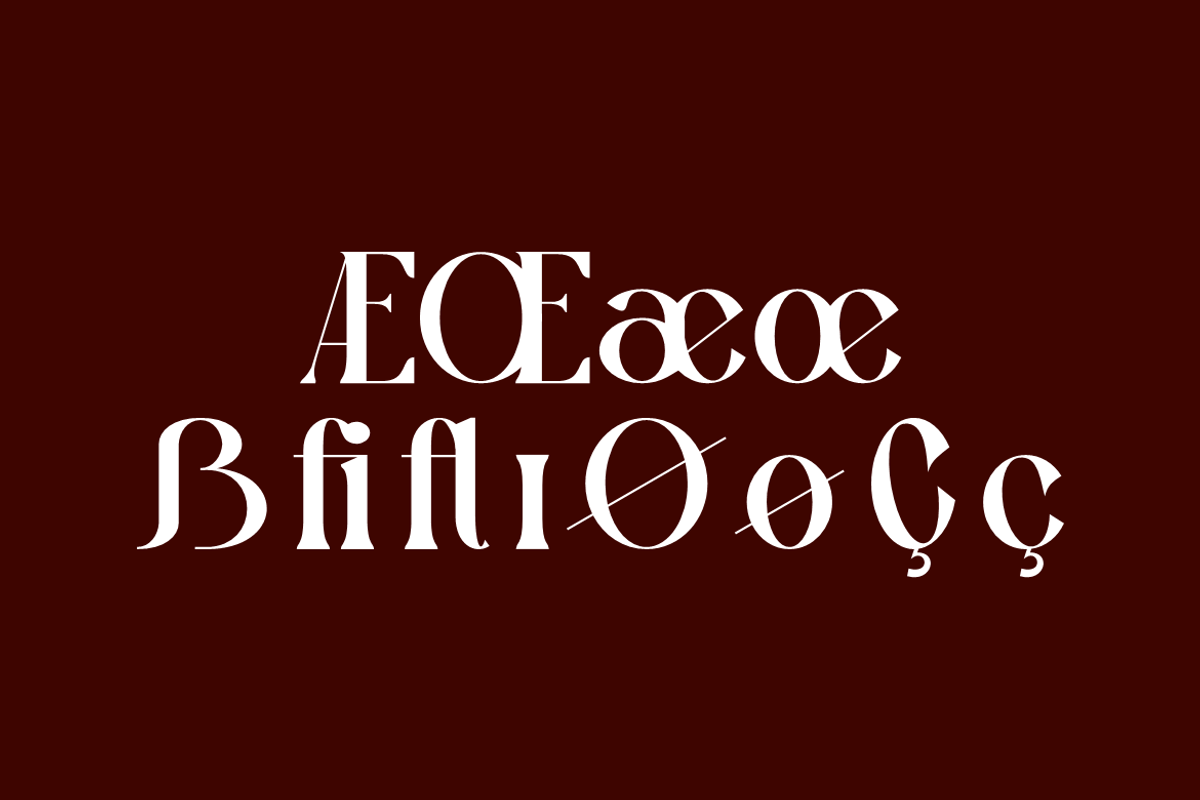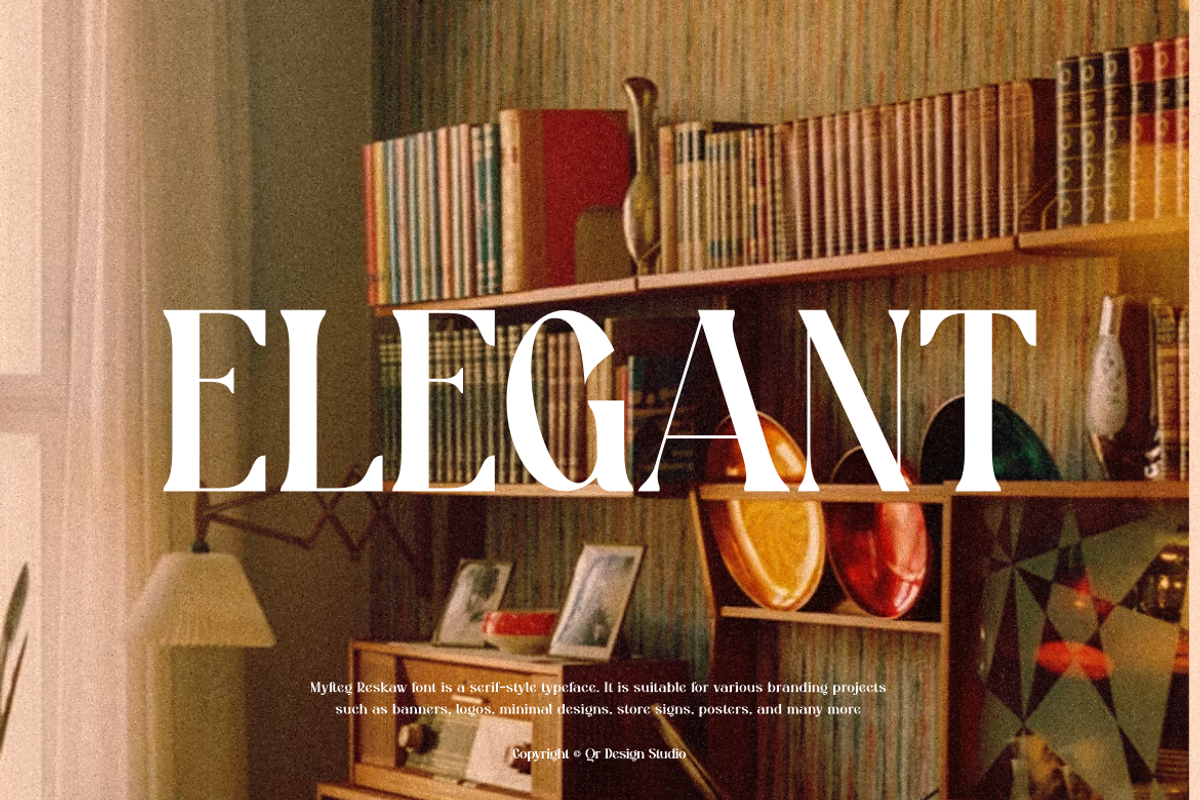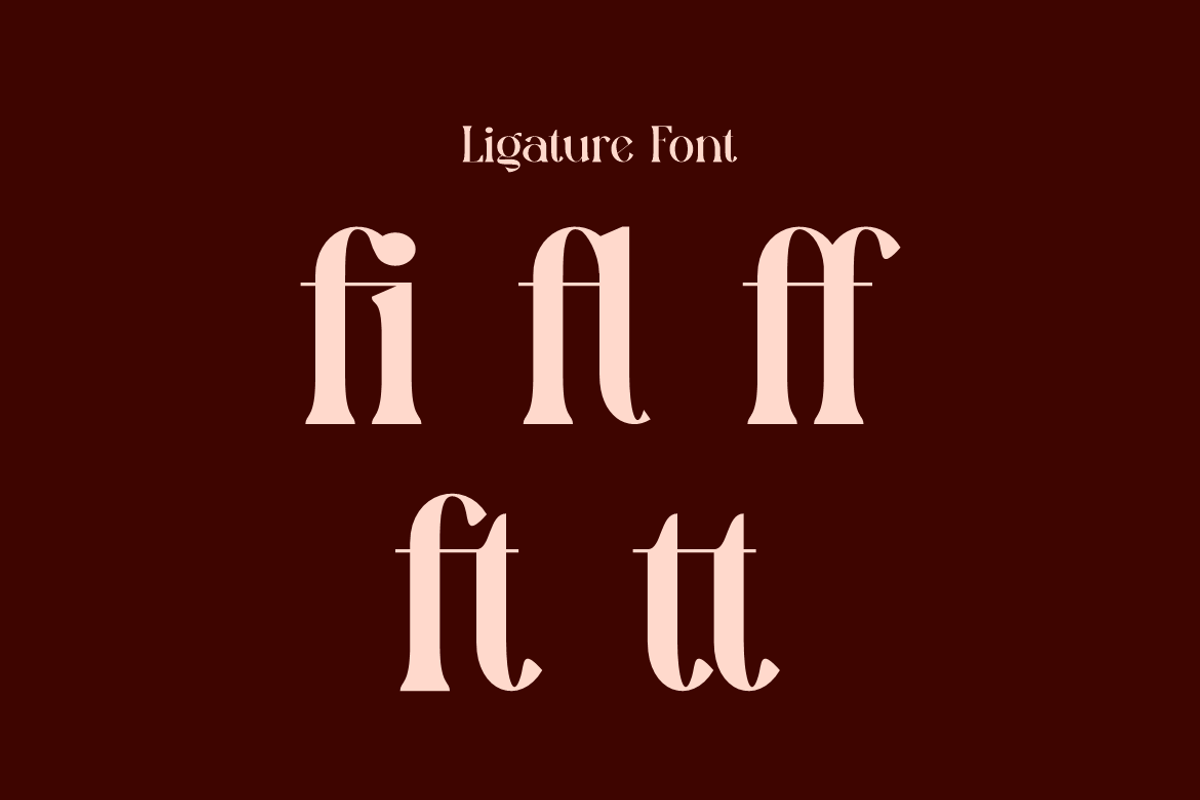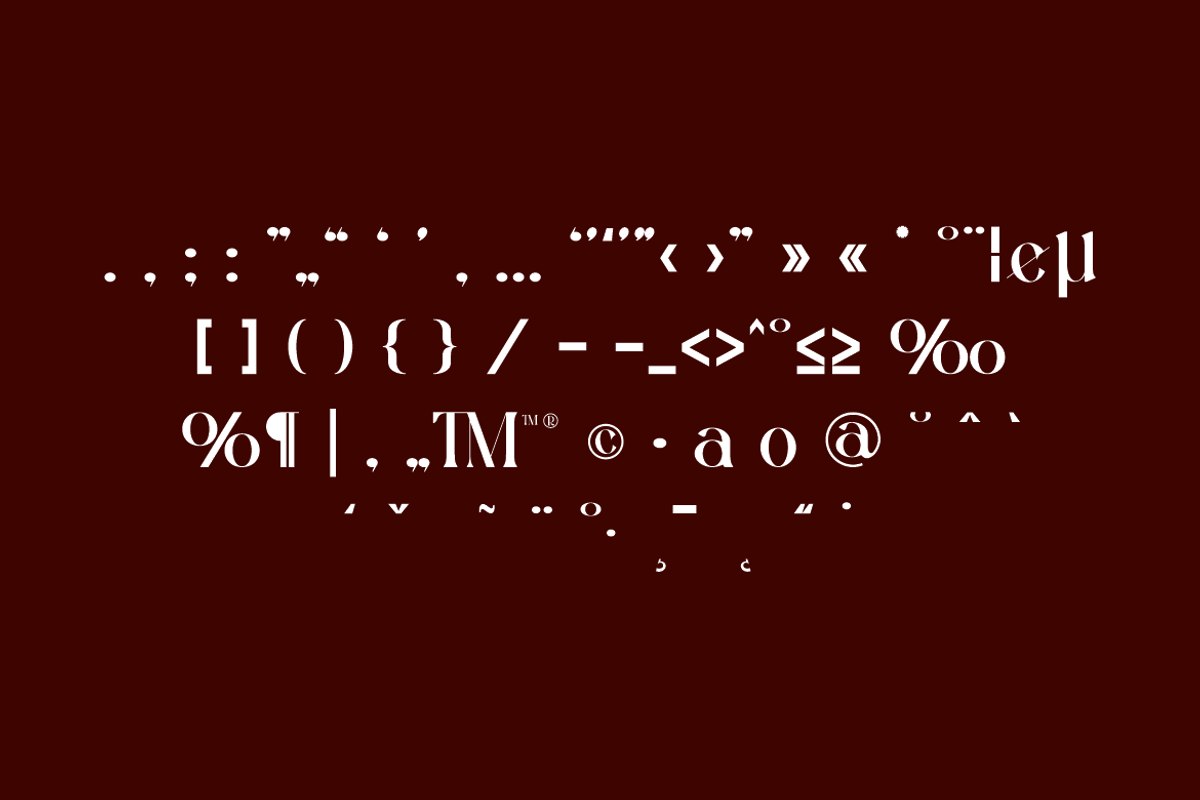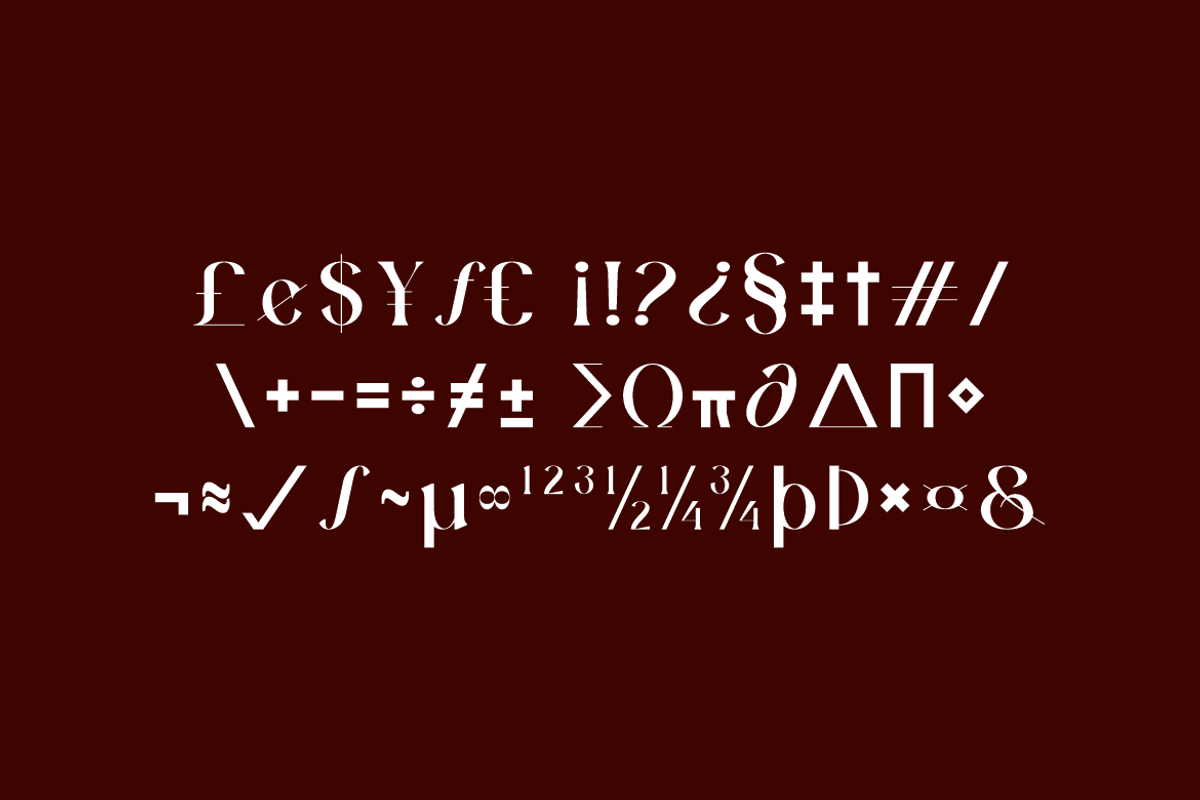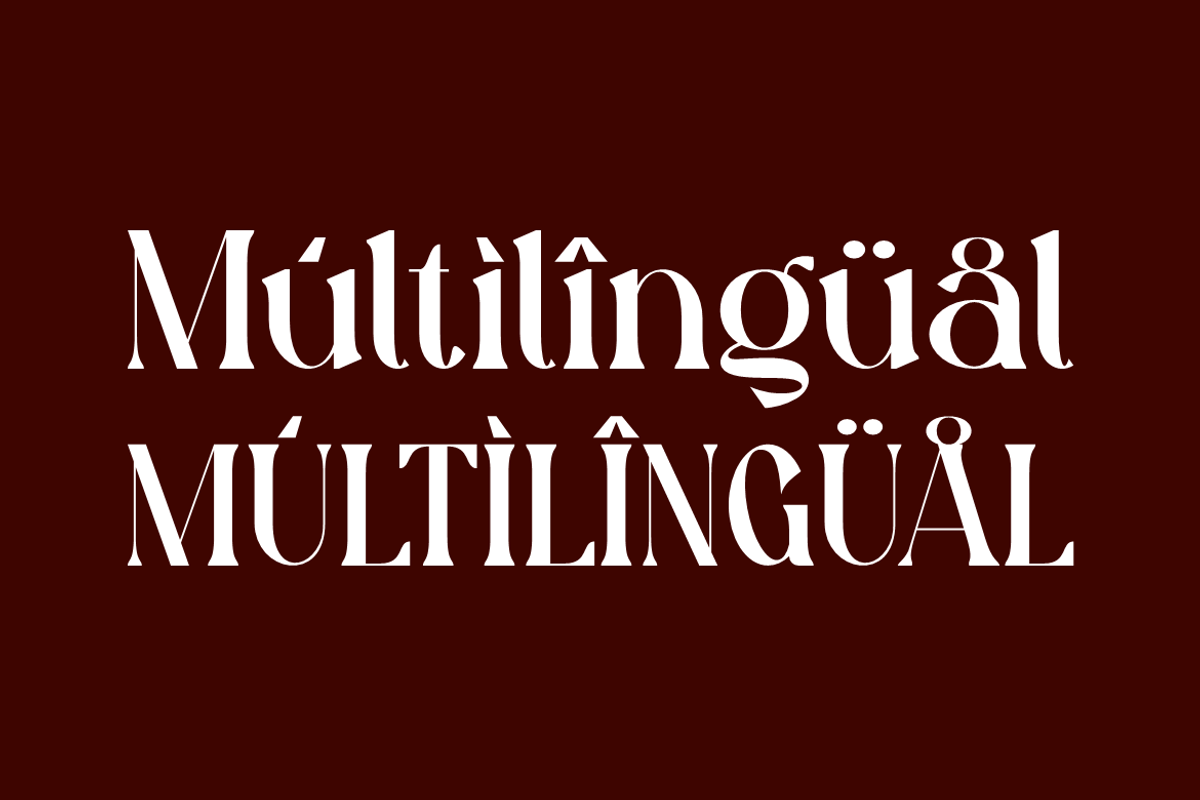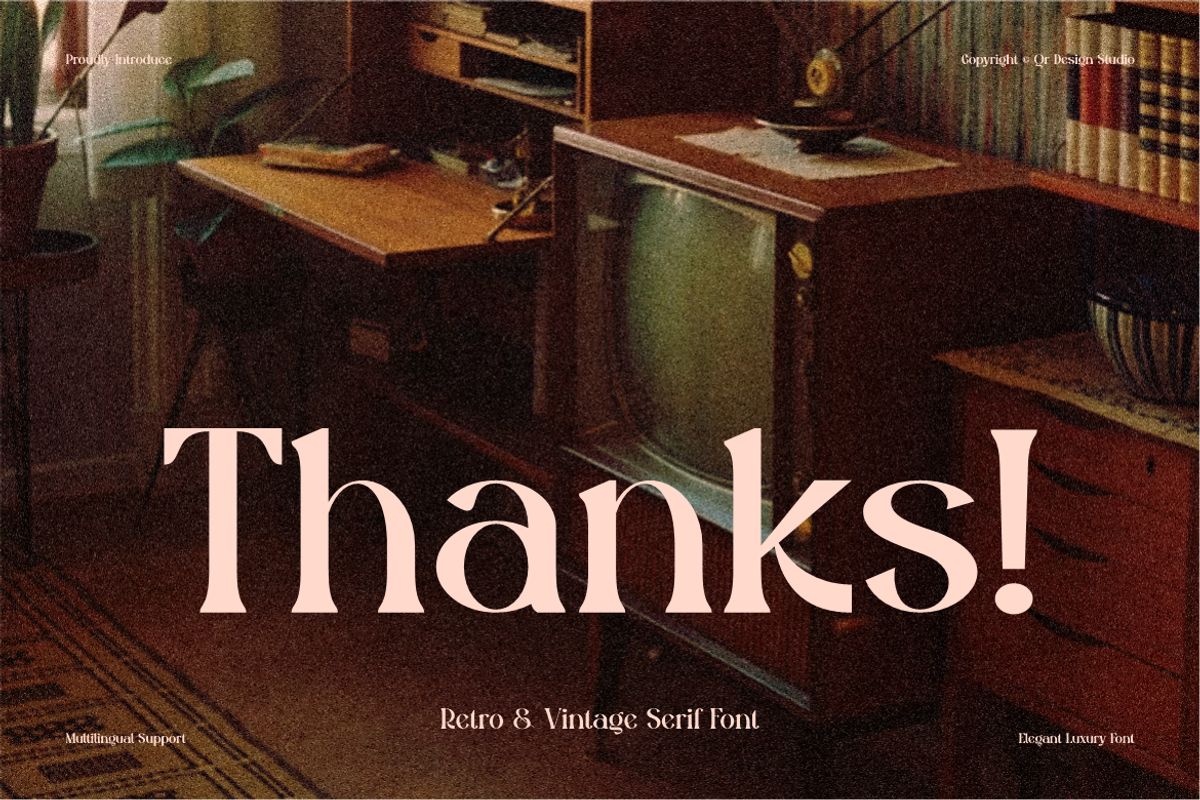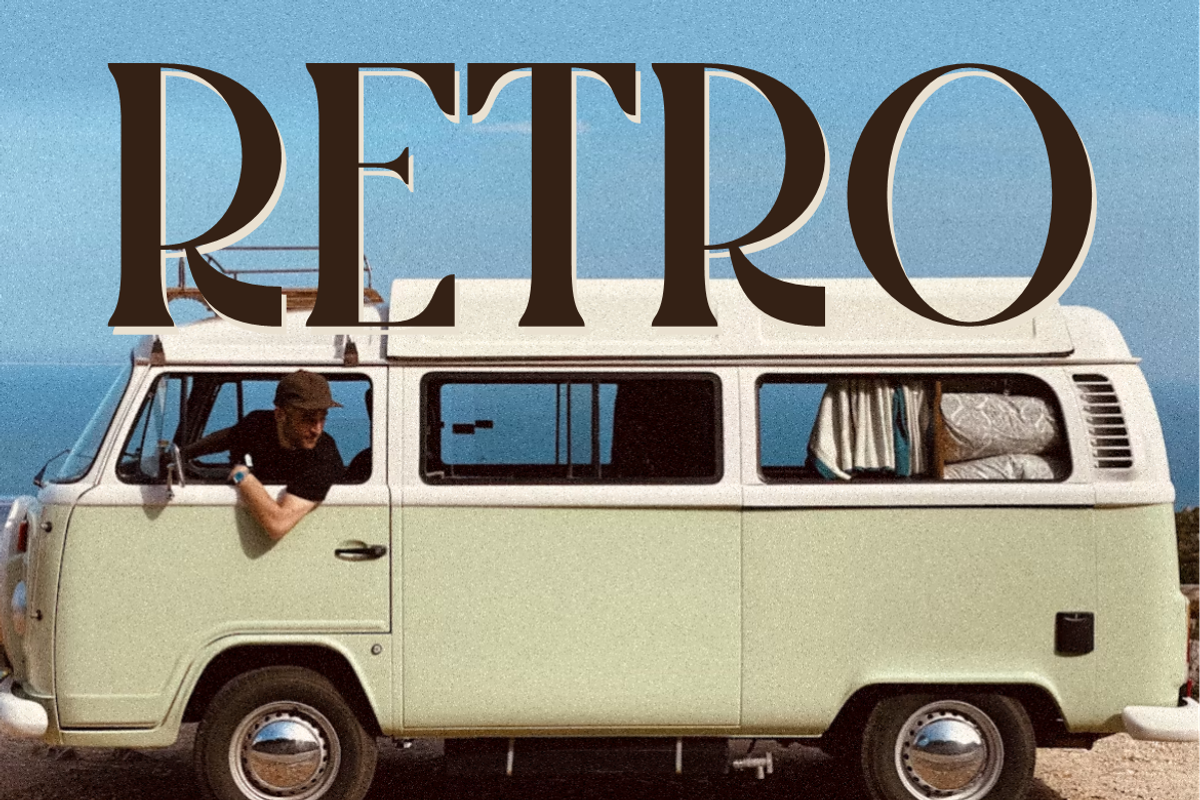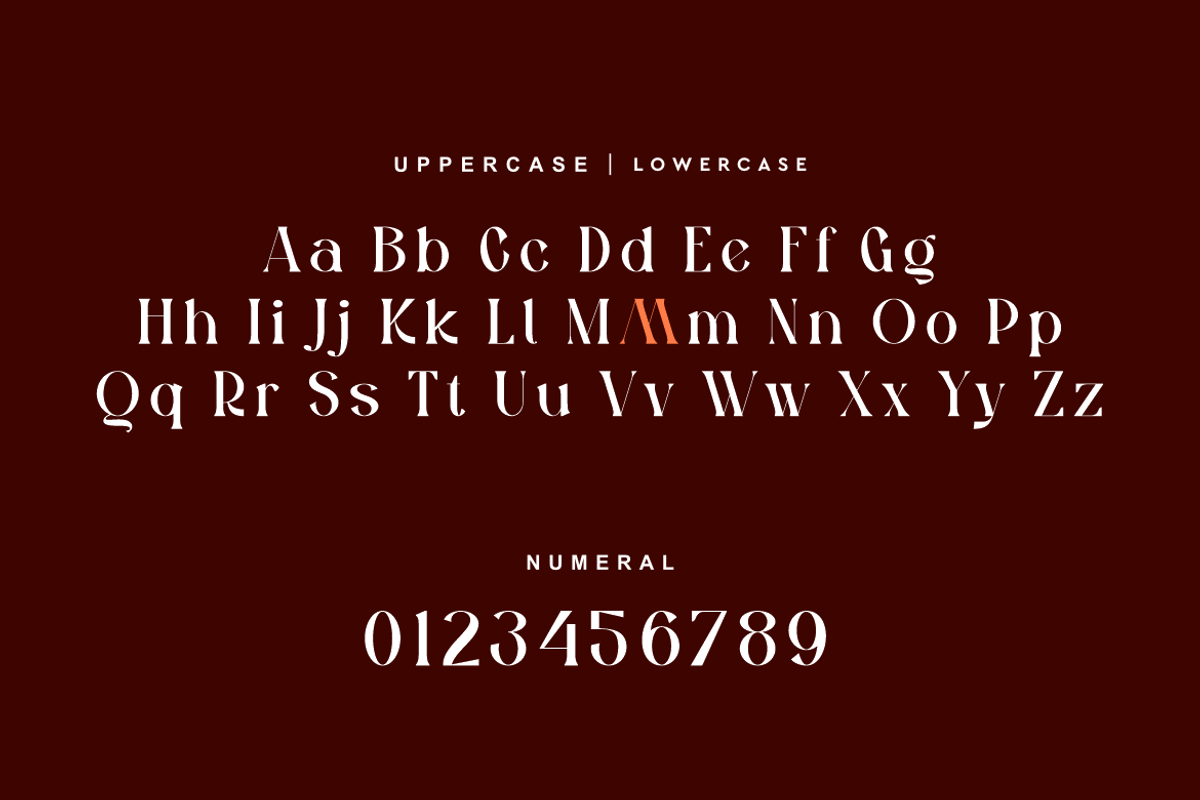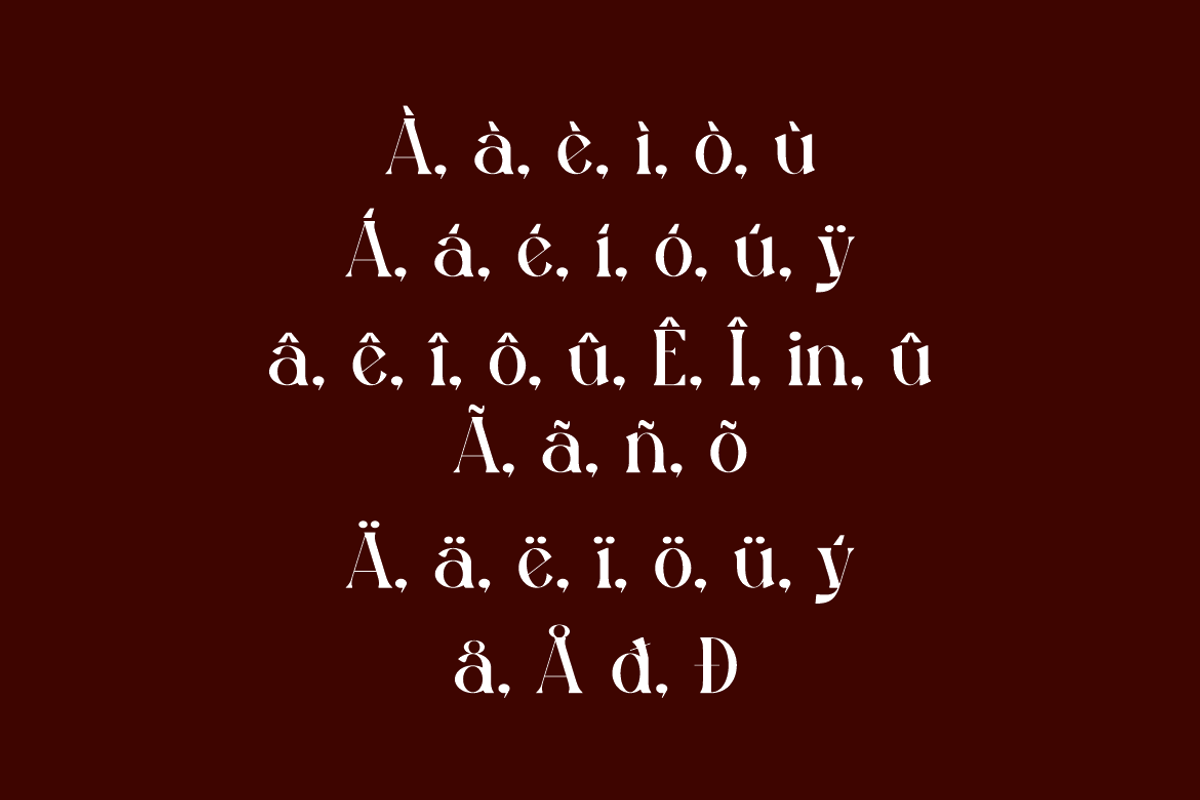
Myftag Reskow - Retro Serif Font
Myftag Reskow Font is a serif and authentic display typeface.
It’s perfect for various branding projects such as logos, retro designs,
and more. This font stands out beautifully in a wide range of contexts.